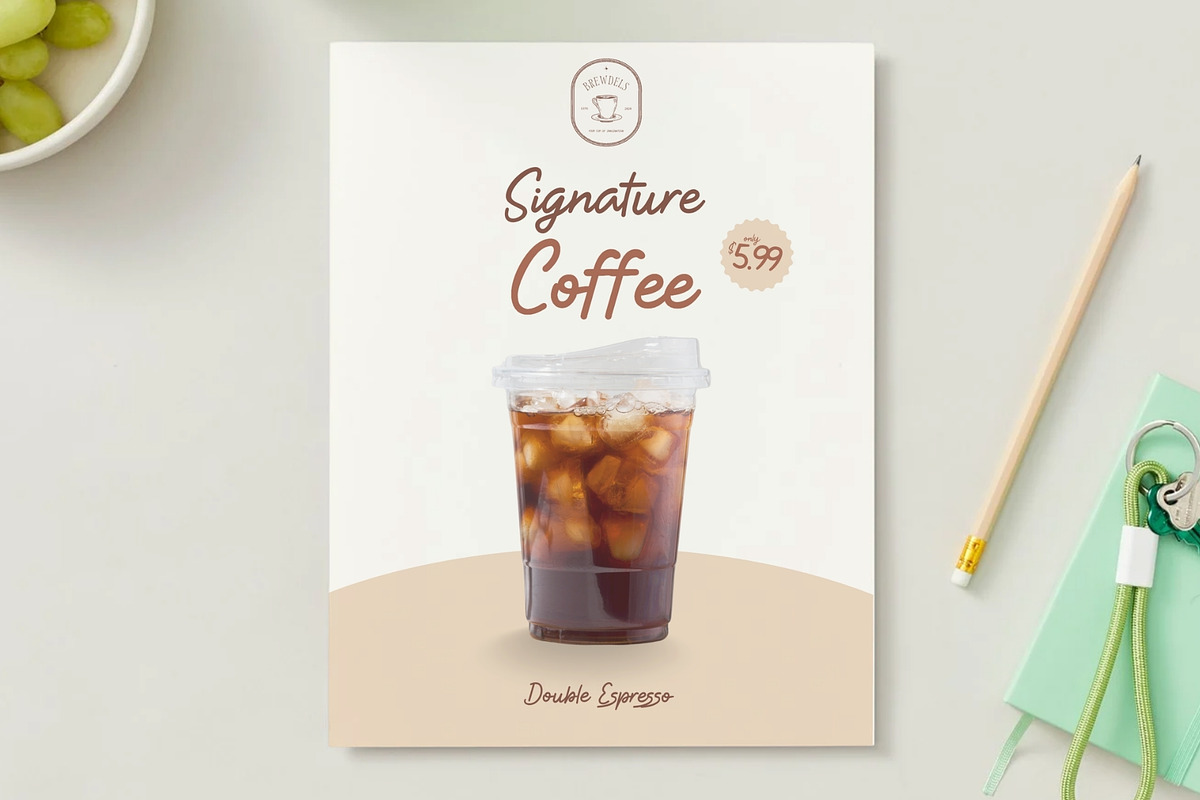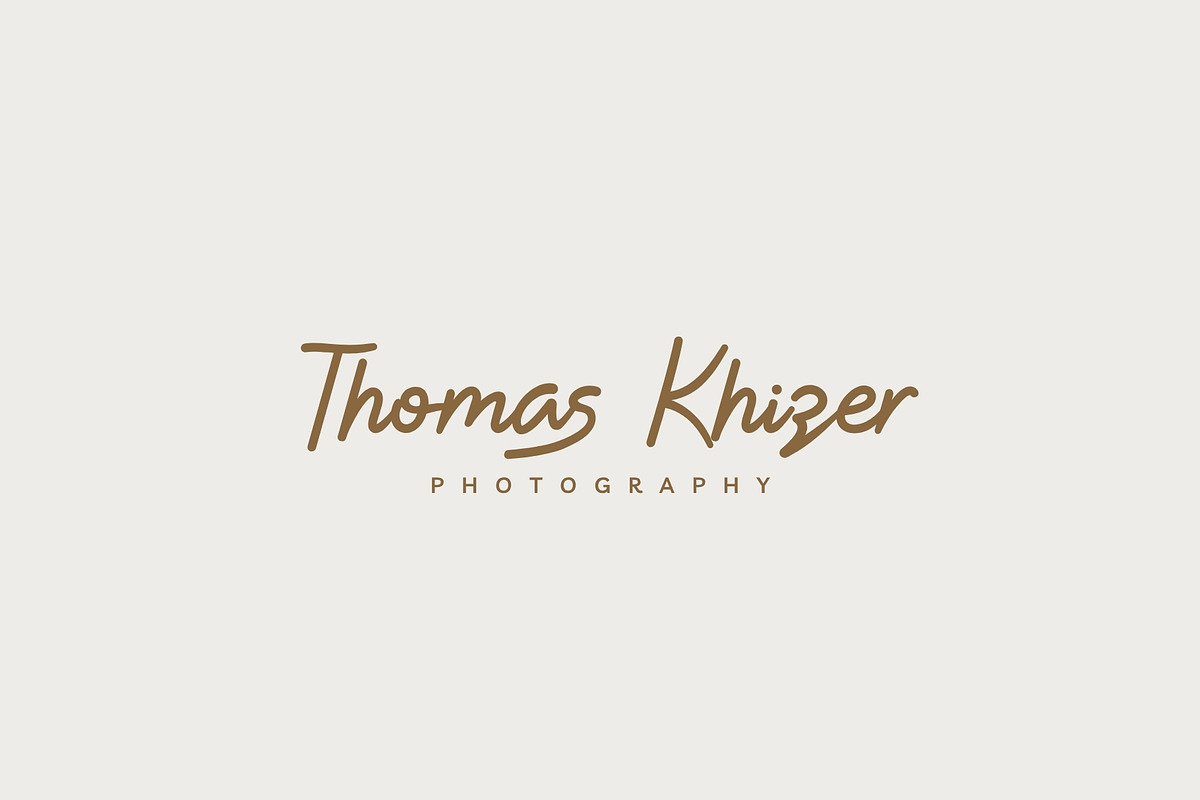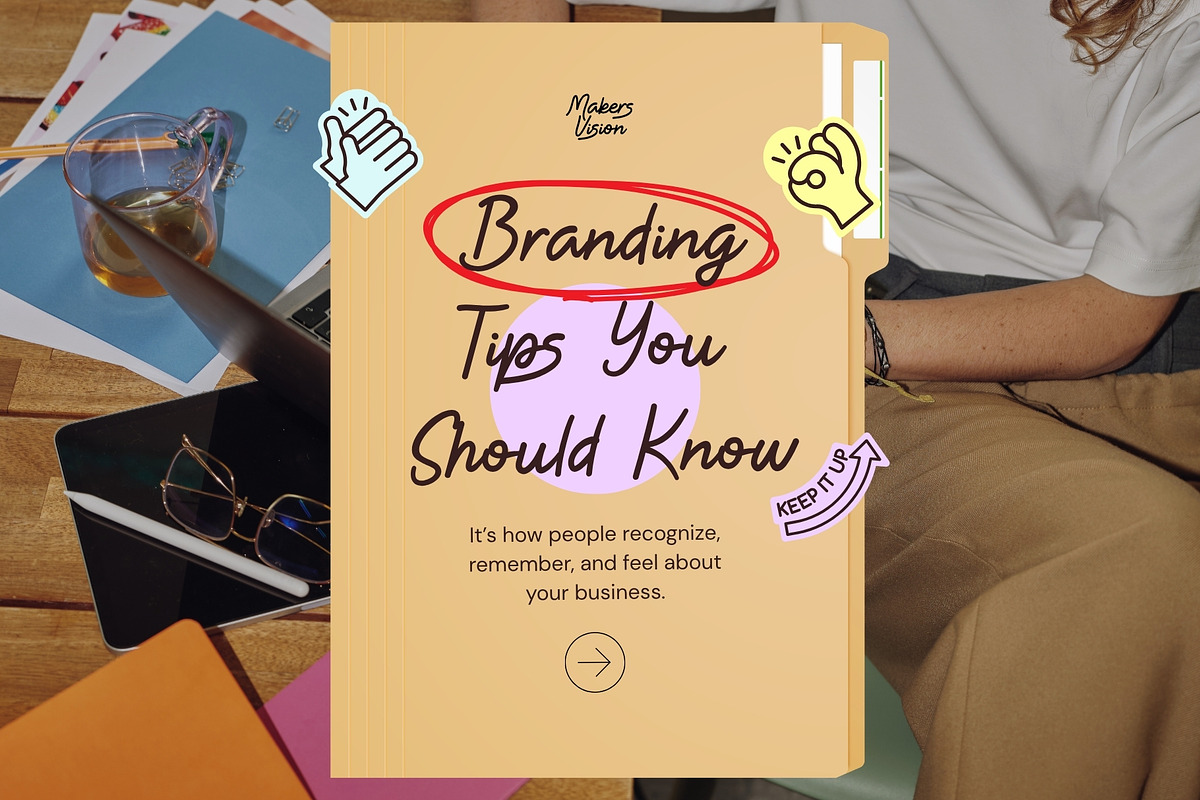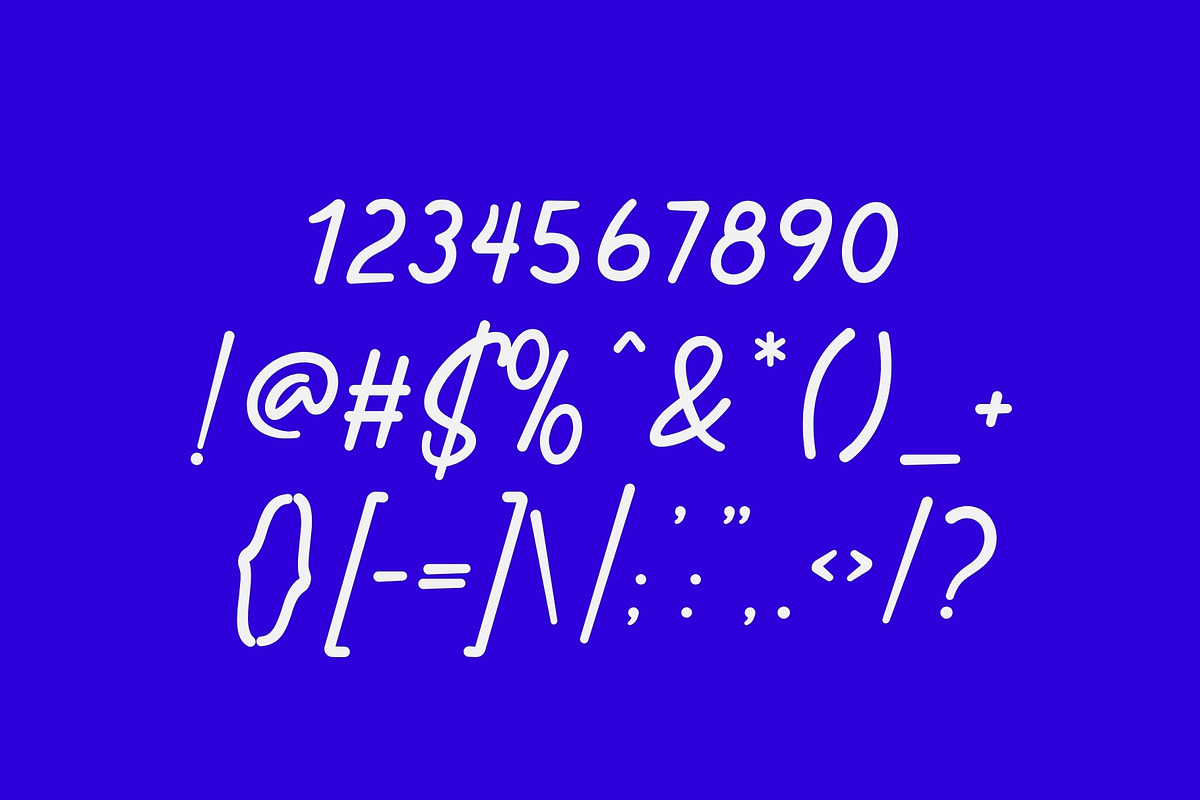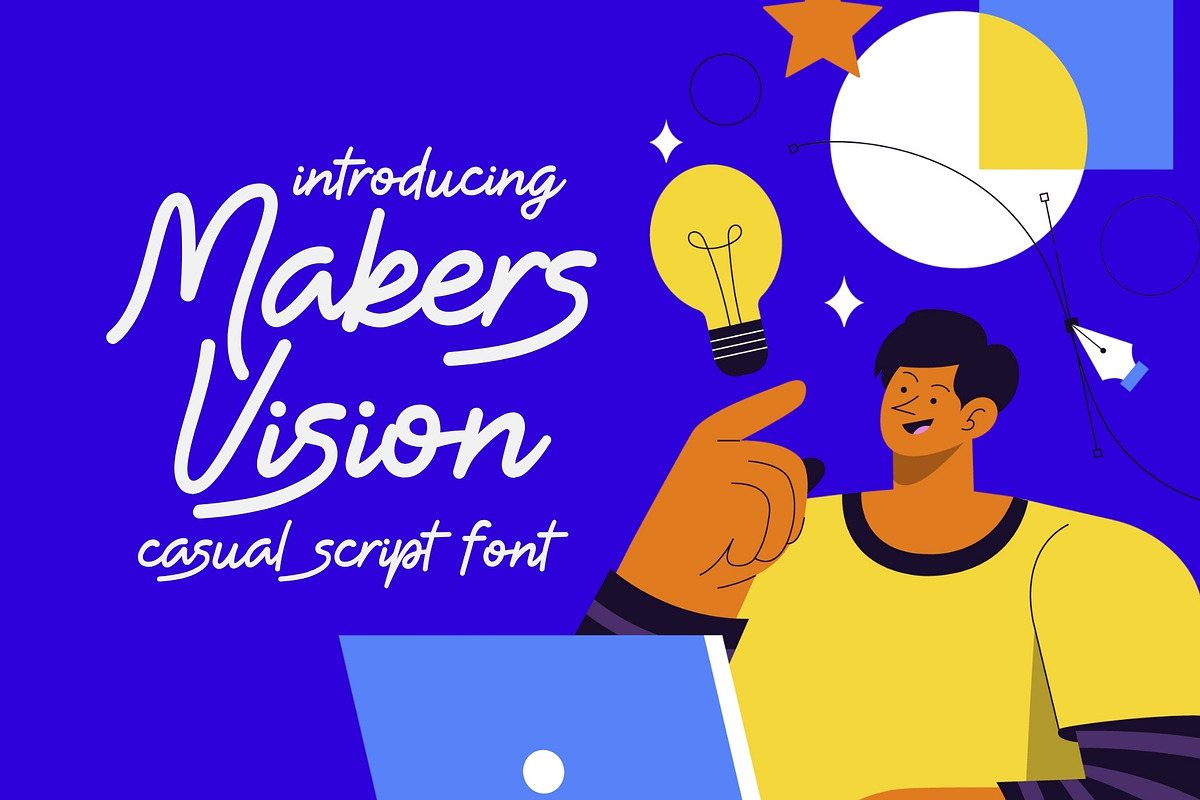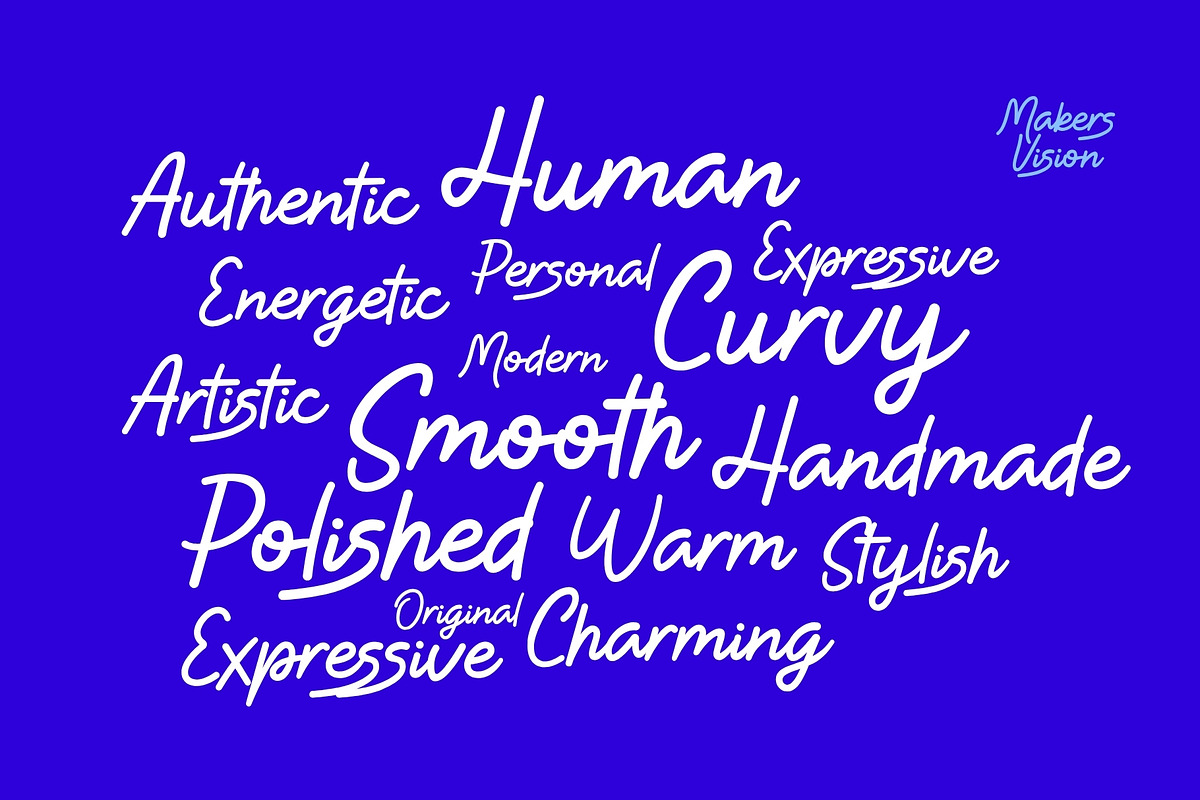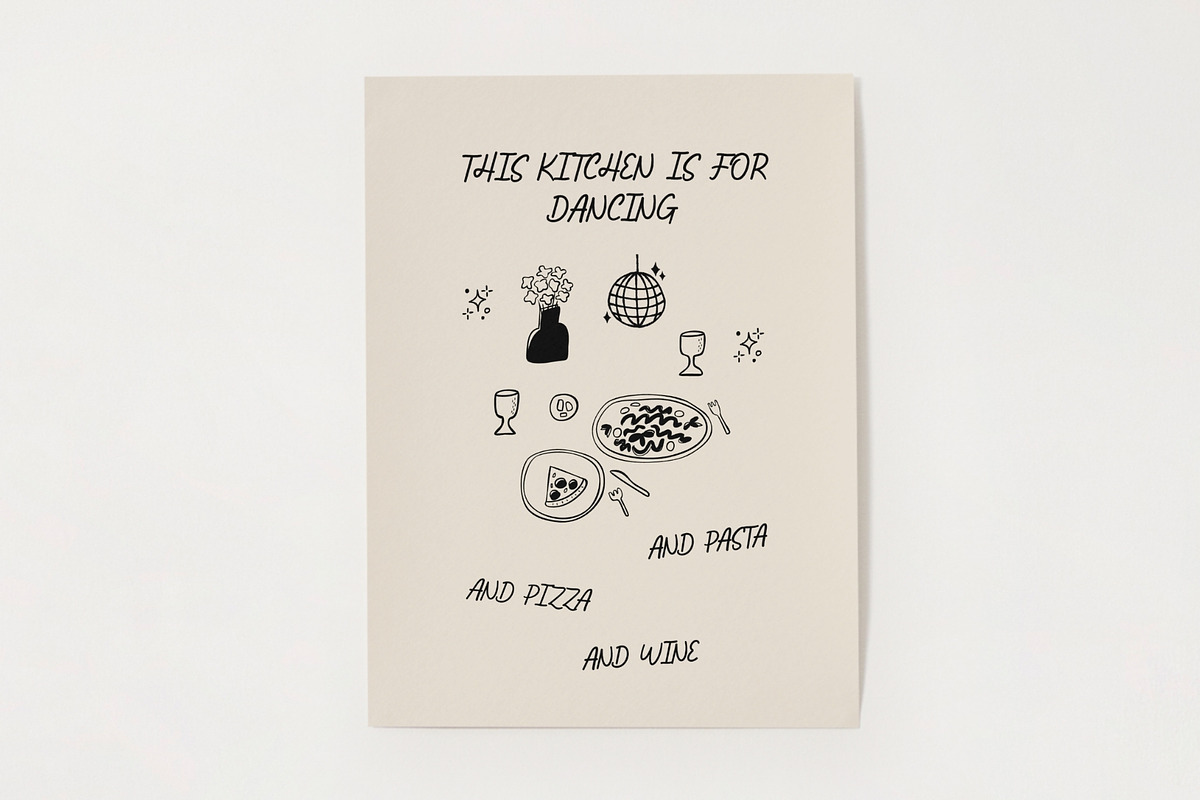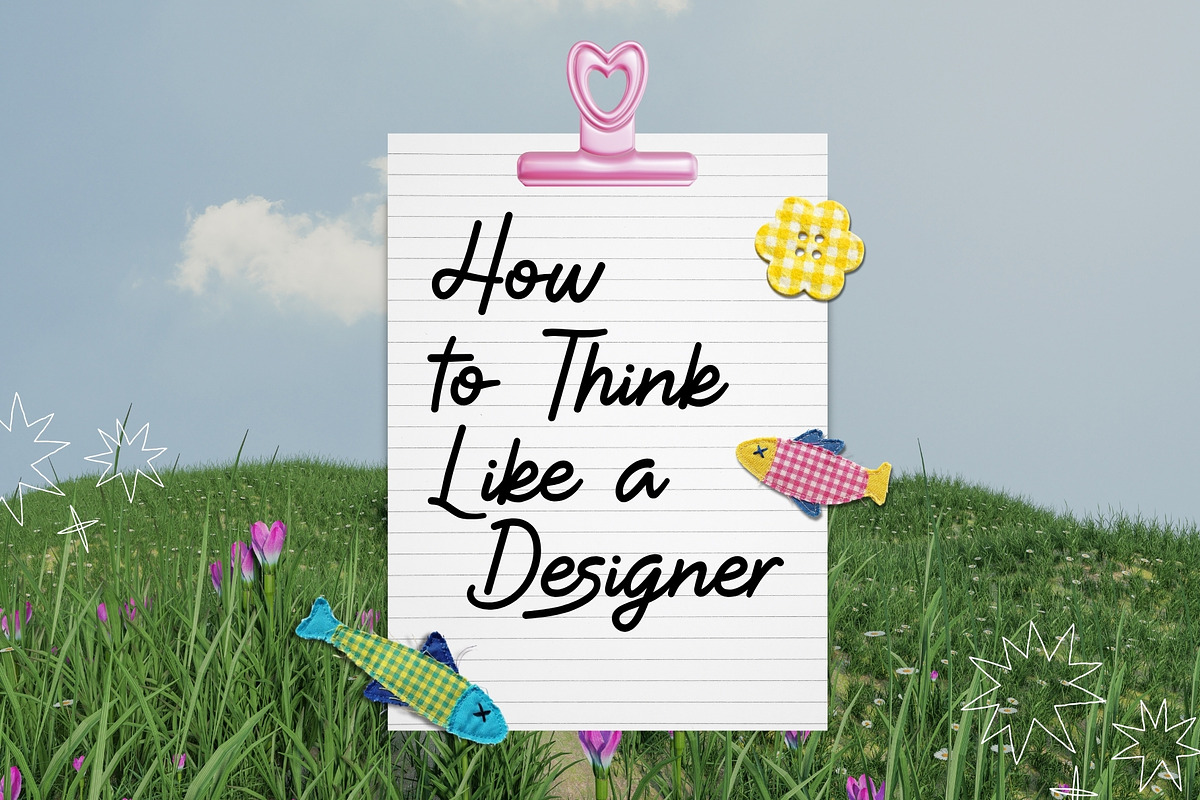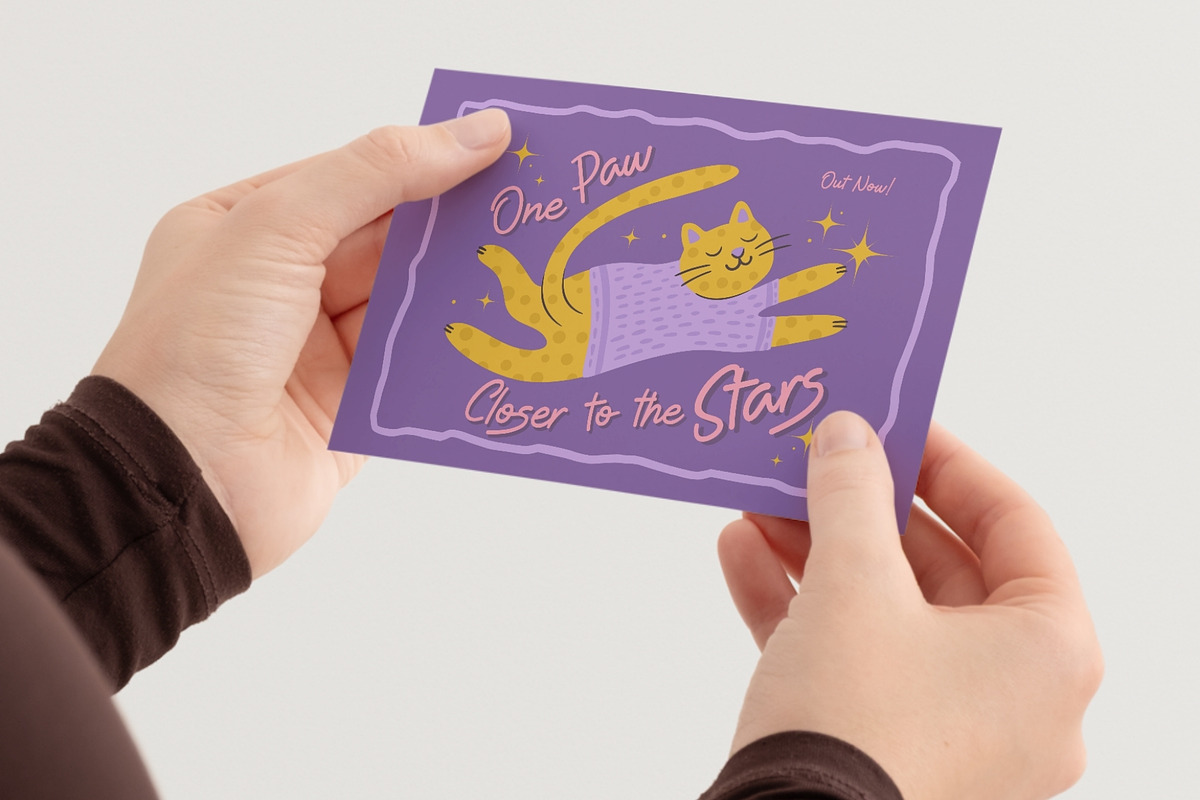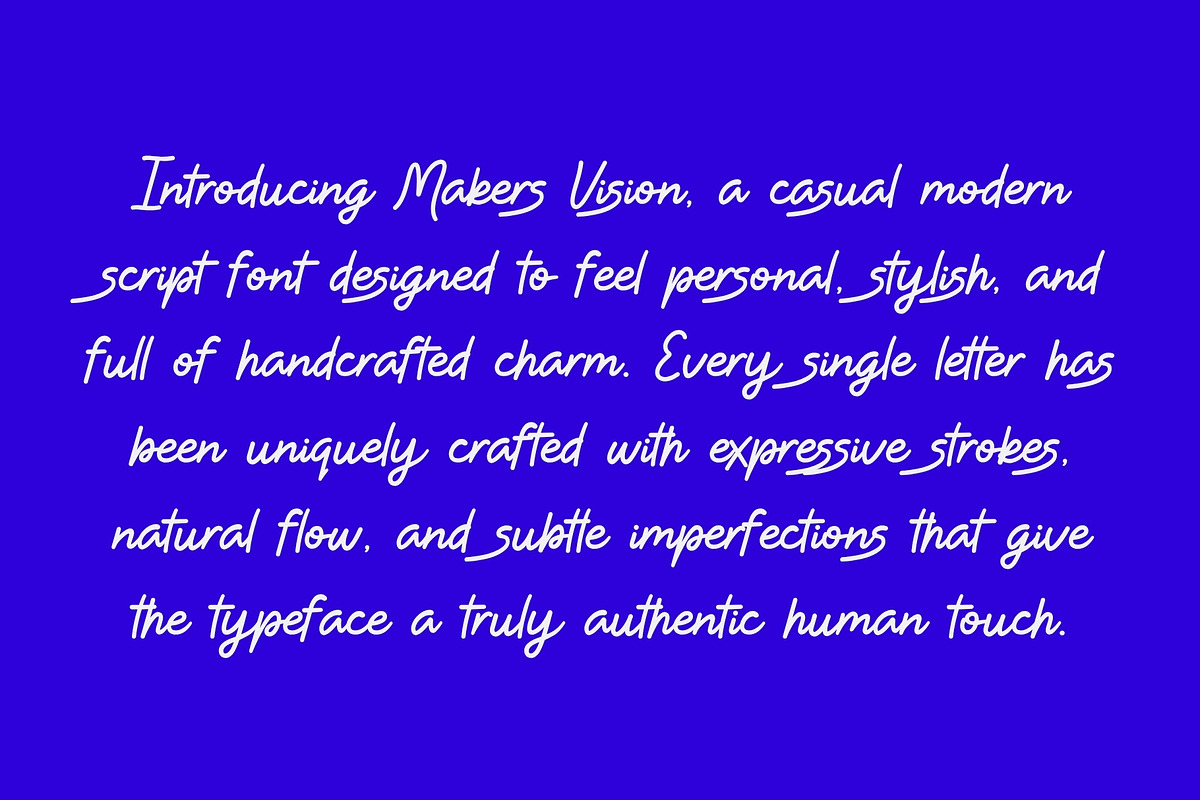
Makers Vision - Casual Script Type
Introducing Makers Vision, a casual modern script font designed to feel personal, stylish, and full of handcrafted charm. Every single letter has been uniquely crafted with expressive strokes, natural flow, and subtle imperfections that give the typeface a truly authentic human touch.
Blending contemporary elegance with relaxed handwritten energy, Makers Vision feels both polished and approachable—perfect for creatives who want typography that feels genuine, artistic, and full of personality. Its smooth curves and handcrafted rhythm make it ideal for projects that need warmth, creativity, and standout visual appeal.
Whether you're designing branding, logos, packaging, social media graphics, wedding invitations, apparel, quotes, photography watermarks, product labels, or lifestyle content, Makers Vision brings effortless style and originality to every composition.
Creative, modern, and beautifully handcrafted, Makers Vision is made for designers who value authenticity and expression.